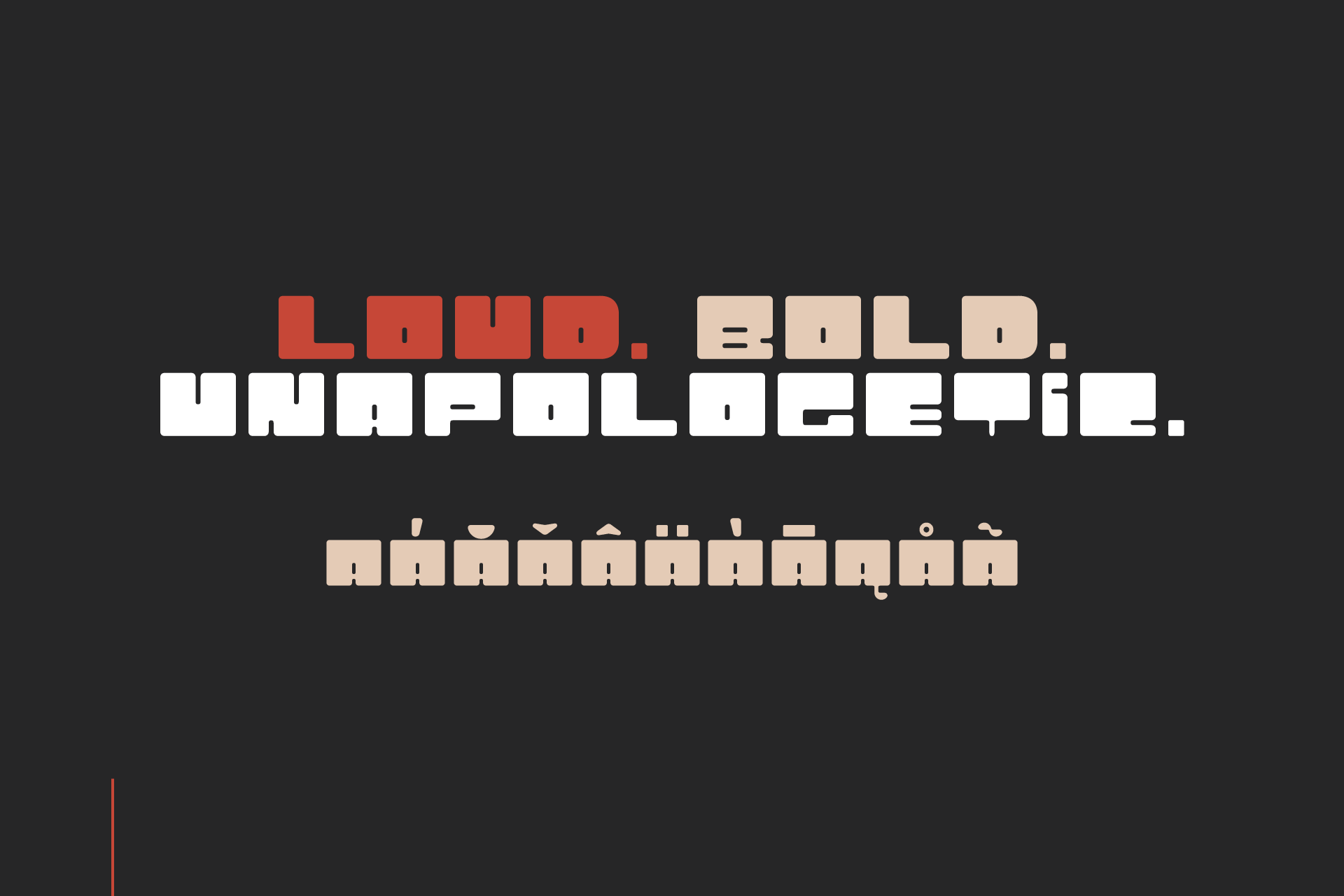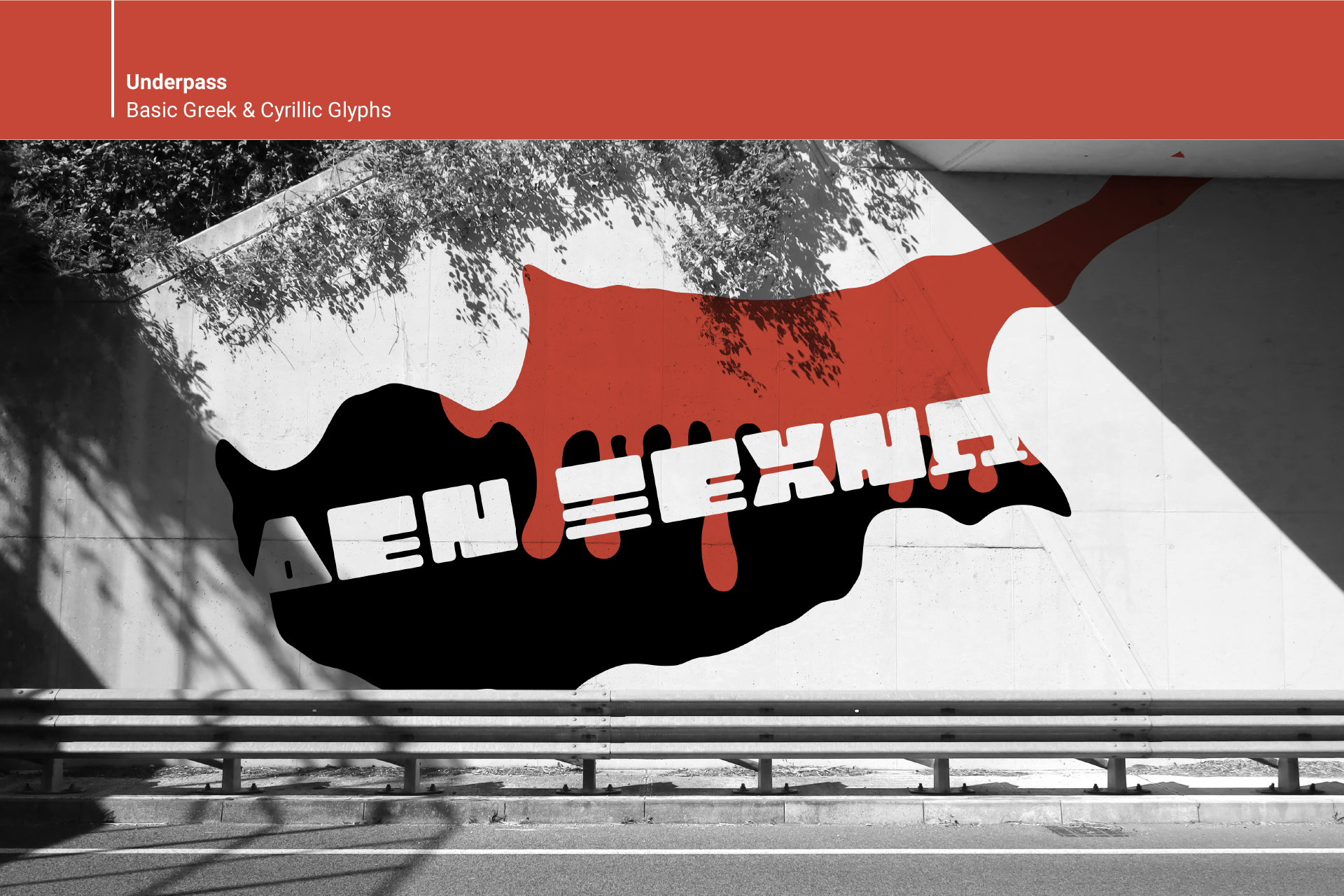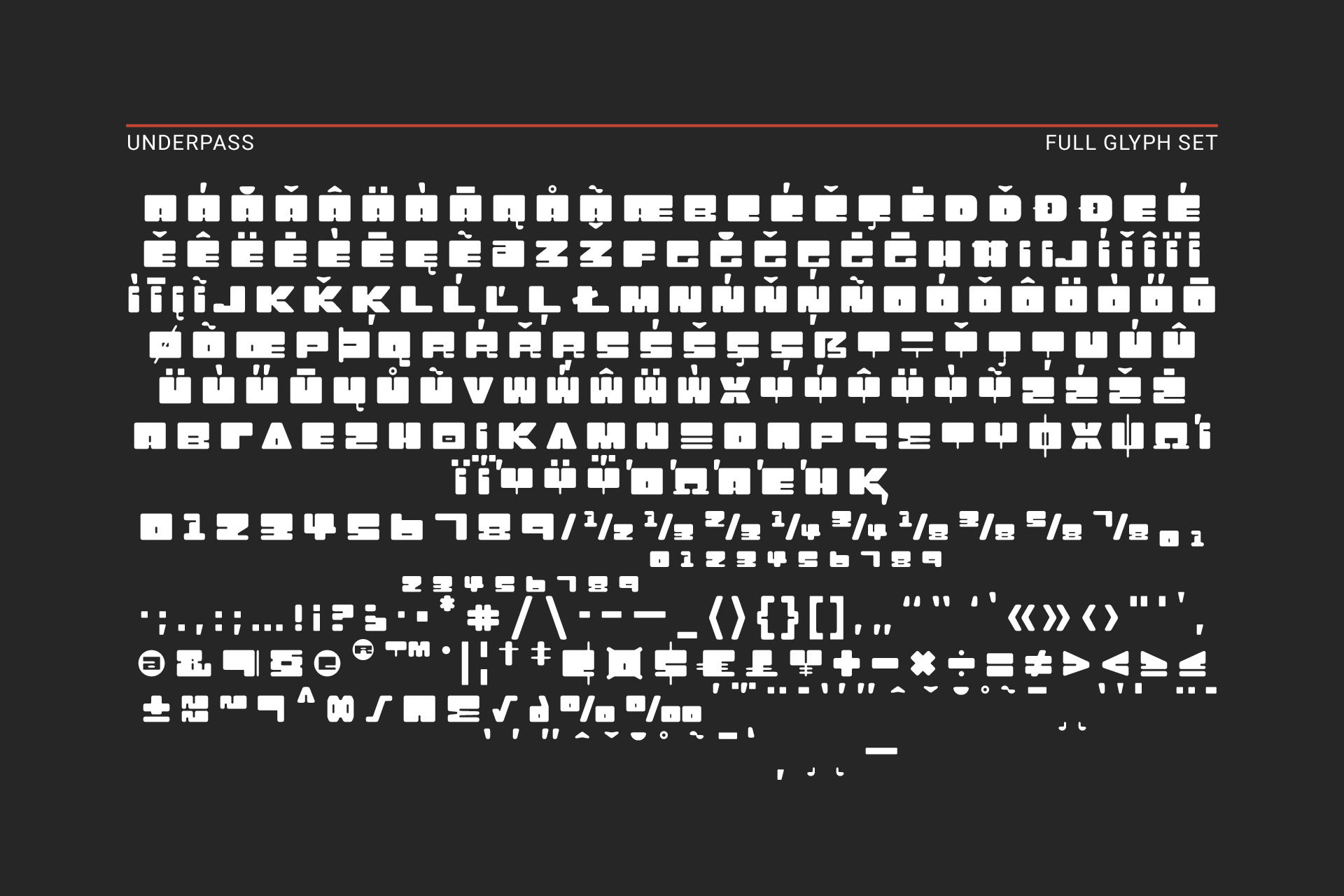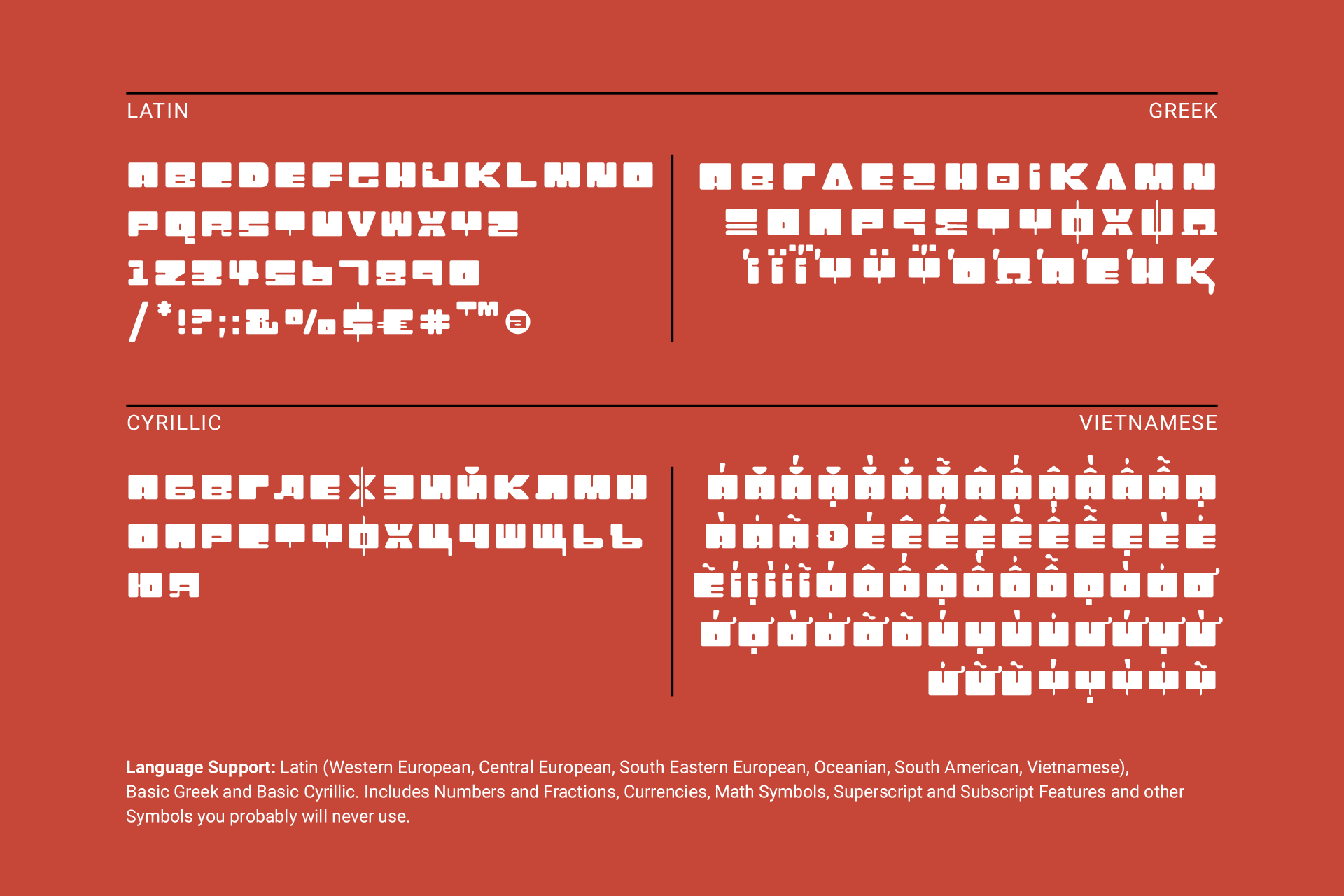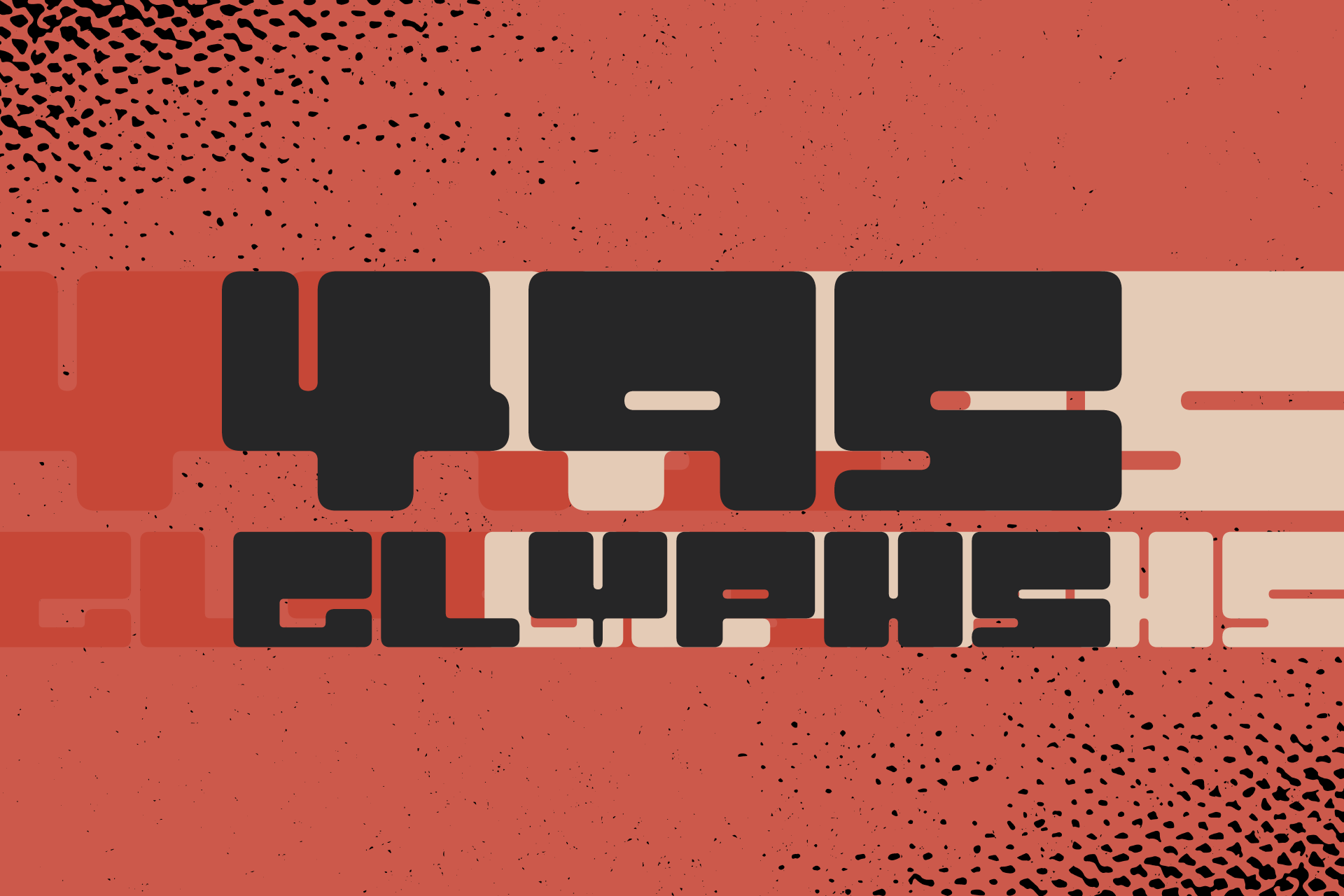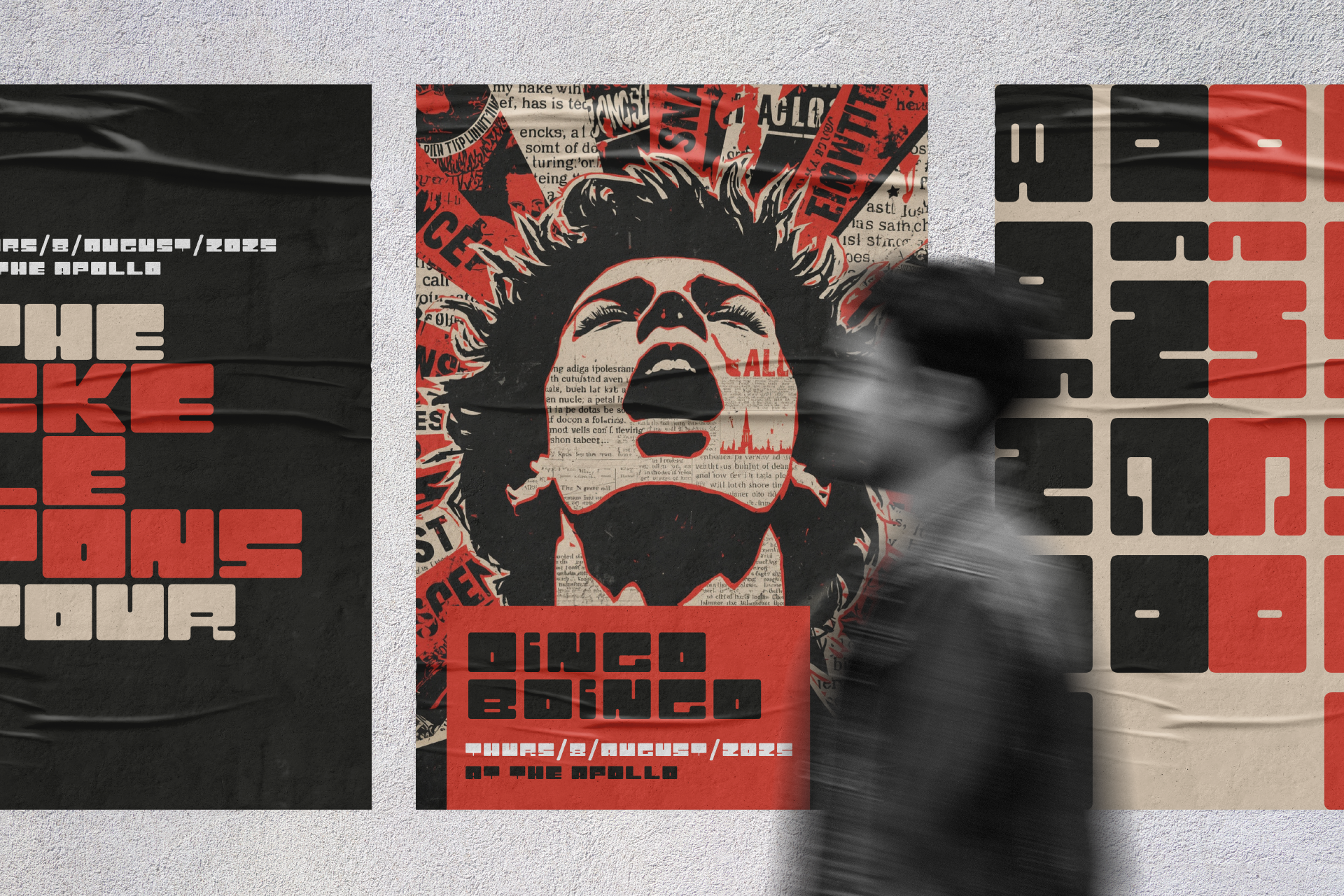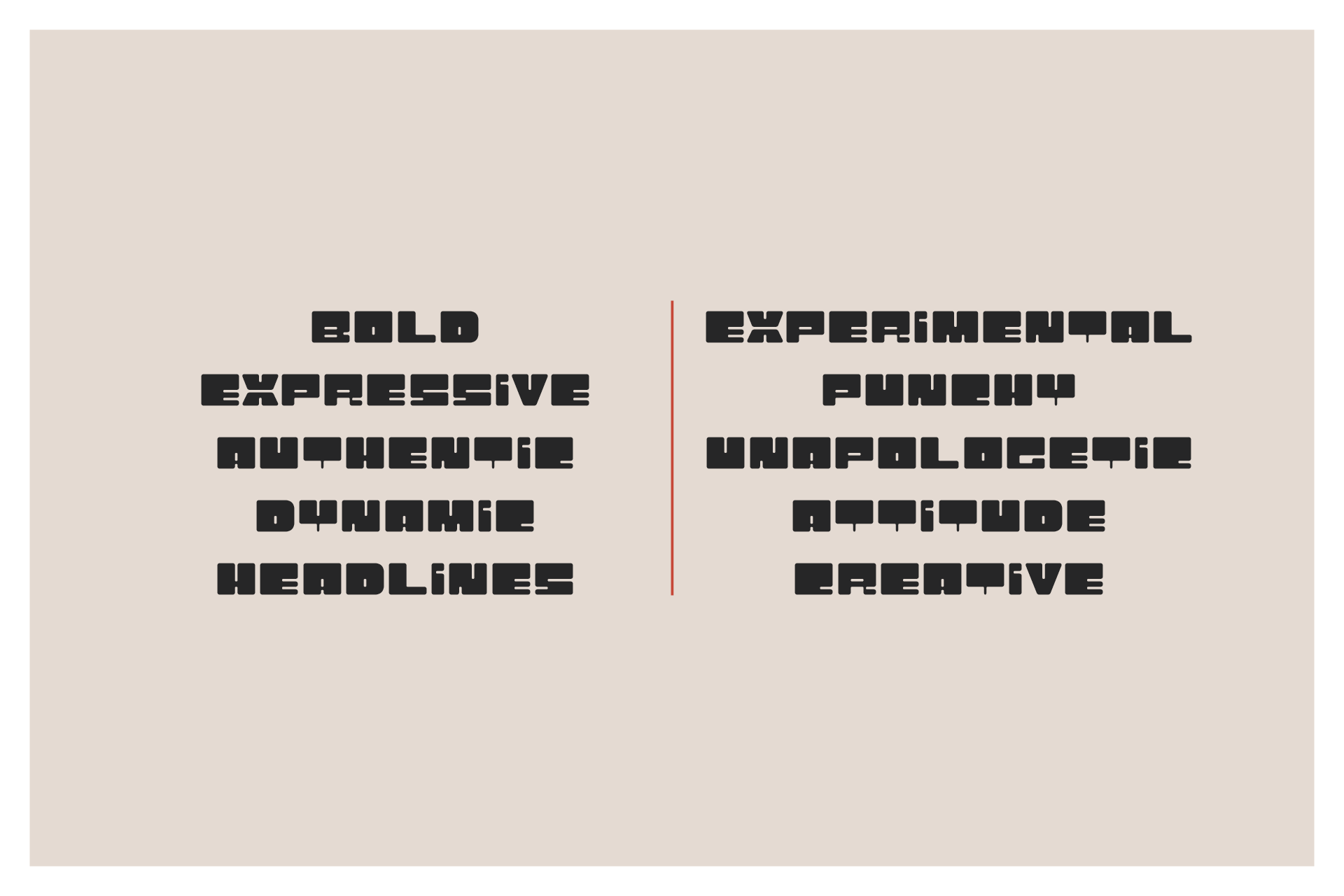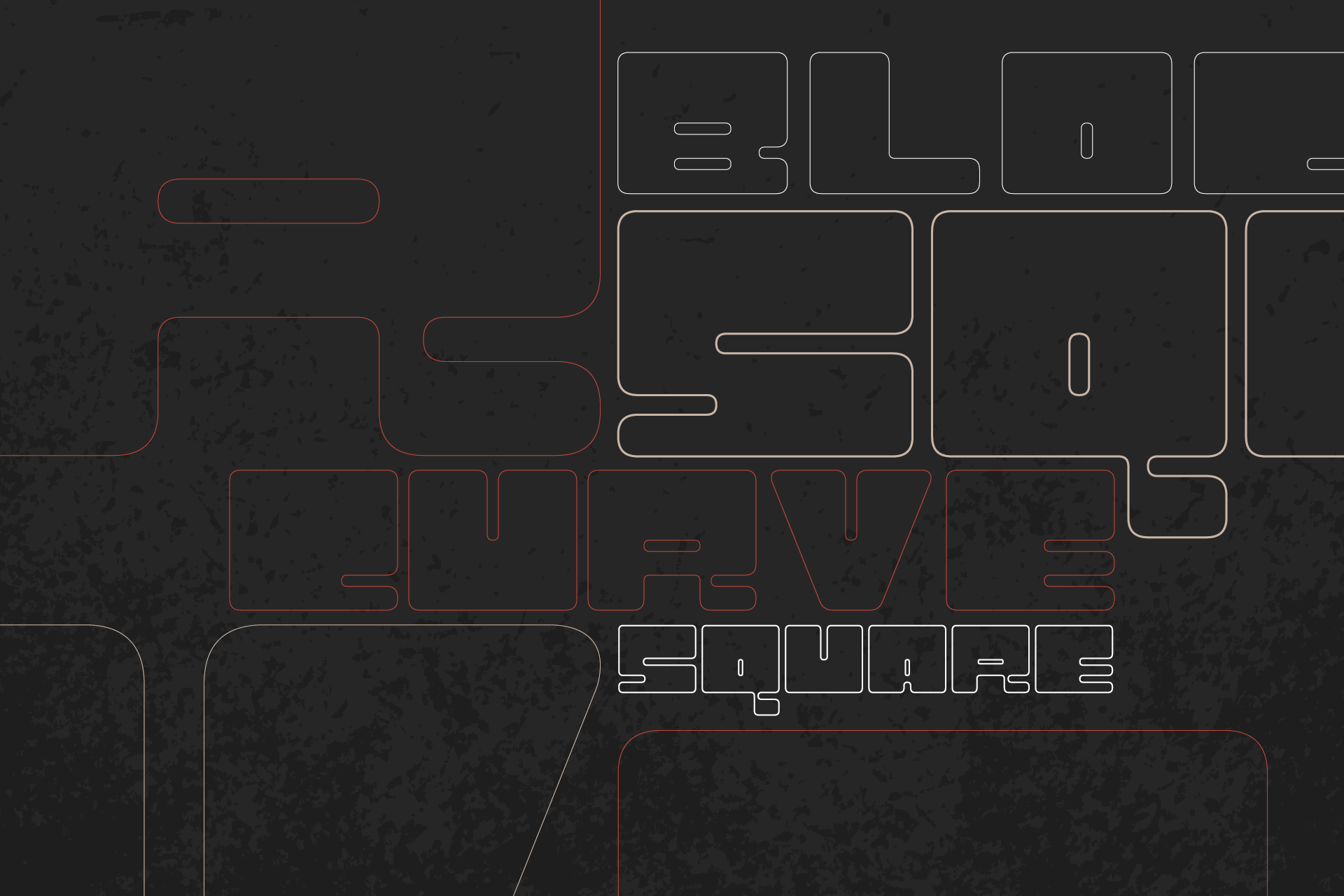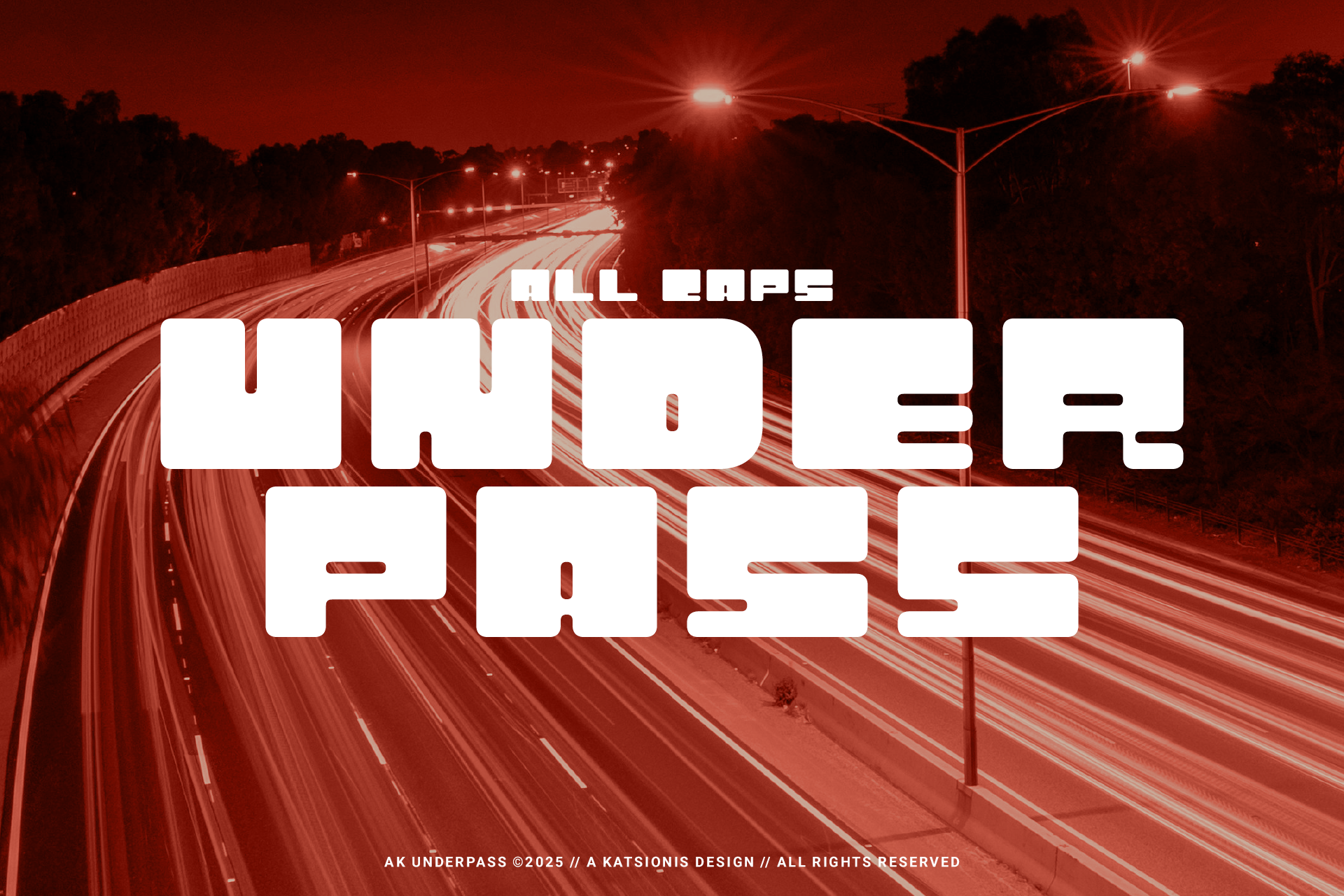
Underpass Display Font
Underpass is a bold, graffiti-inspired block font built for maximum impact.
Underpass is a bold, graffiti-inspired block font built for maximum impact. With its distinctive, top-heavy structure and unconventional forms, it brings attitude and edge to any layout.
Whether you’re designing eye-catching headlines or filling letterforms with textures, images, or patterns, Underpass gives you the creative flexibility to make your work stand out. It’s more than a font — it’s a statement.
• Class: Sans Serif, Display
A black and white image of the alphabet and numbers on a black background.
An orange background with white letters and numbers on it.
Underpass font at work on posters
Underpass has 495 glyphs.
Underpass font at work on more posters.
Word cloud using the Underpass font.
Outlined graphic of the Underpass font.